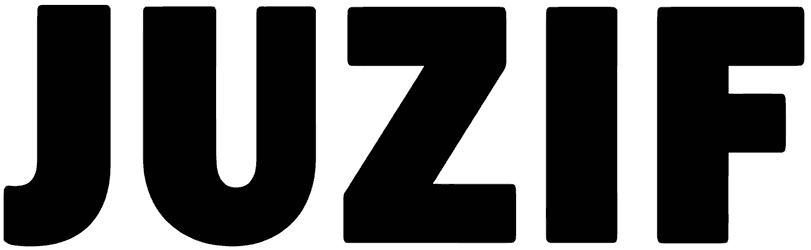
Juzif Font
Here we come again with a chunky sans-serif font commonly known as the Juzif that carries bold letters and is able to deliver a feeling of modernity, vivacity, jauntiness, or dreaminess in your professional projects.
Since it can take the quality of your content, such as blog posts, stickers, magazines, flyers, or branding projects, to a higher level, the lack of lowercase letters will never turn into a serious problem. Also, check out our archive for more products.